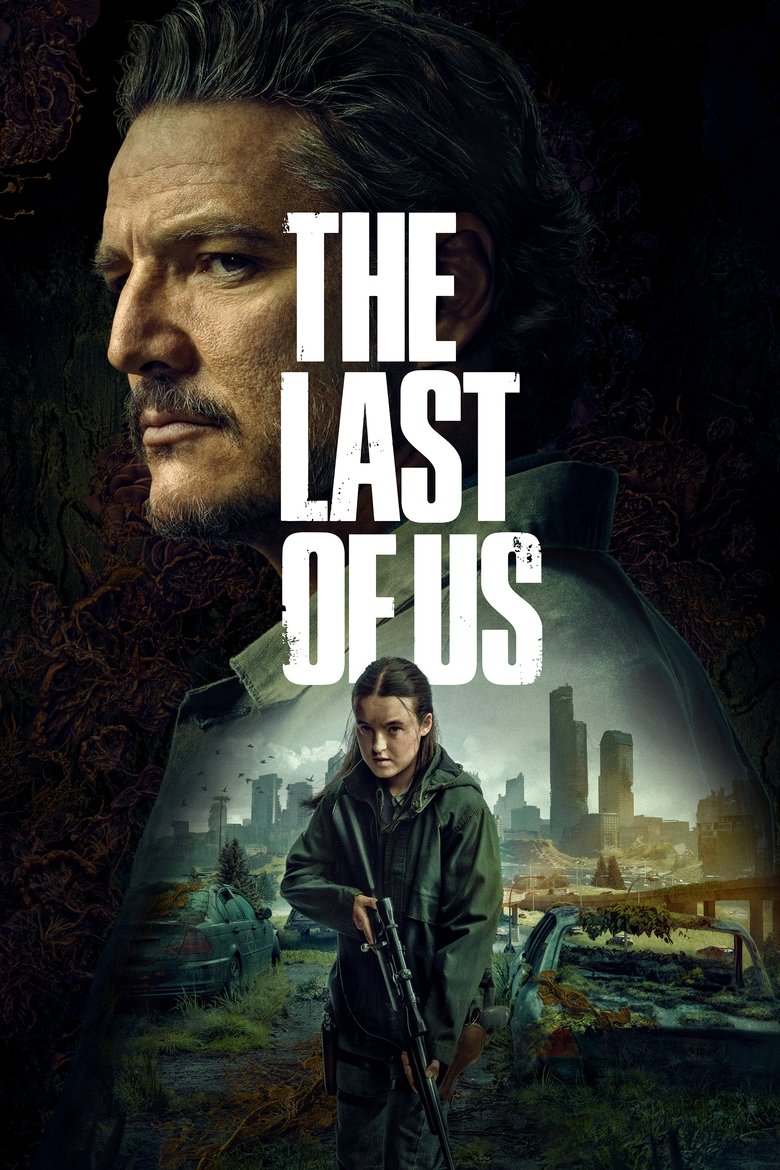
About the The Last of Us font
The Last of Us uses a quiet, condensed sans. Oswald mirrors its bleak, post-outbreak restraint.
What font is used in the The Last of Us logo?+
The original The Last of Us logo uses custom lettering. This generator recreates the look with Oswald — a free, open-license font you can style and download.